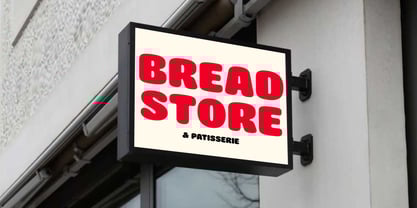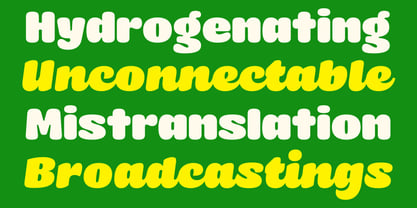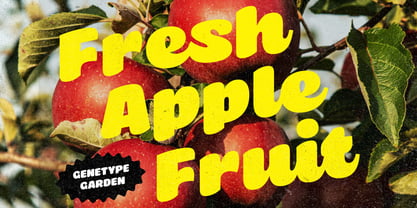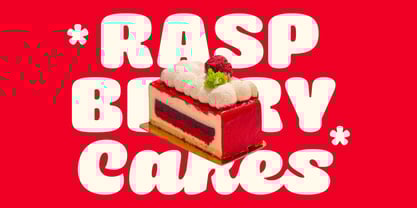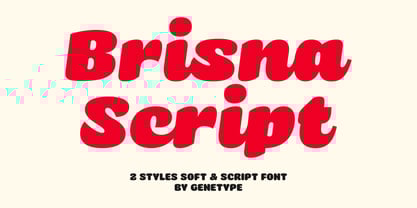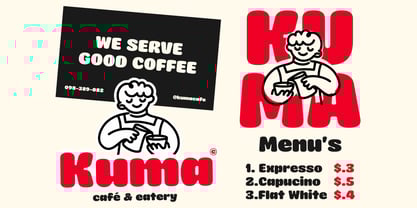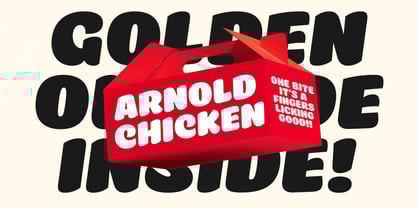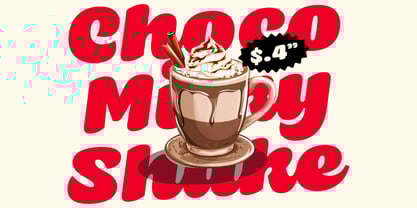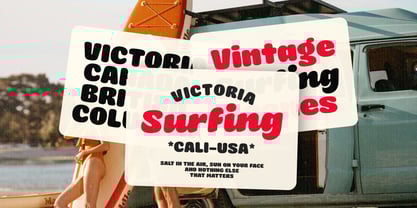
Brisna
by Genetype
The Brisna Font Family was designed by Bagus Arya Kirana and published by Genetype. Brisna contains 2 styles and family package options.
Briska – Soft Playful Script Font A smooth and playful script font with a soft, rounded personality — perfect for friendly branding, packaging, posters, and cheerful creative designs. Introducing Brisna – Soft Playful Script Font Briska is a warm and expressive script font designed to bring charm and personality to your typography. Its smooth curves and rounded strokes create a friendly, modern, and playful look while staying clear and readable. Perfect for branding, logos, packaging, posters, and social media graphics, Briska adds a cheerful and inviting feel to any design. 2 Font Styles: Brisna includes Regular and Script styles, allowing you to combine clean rounded lettering with expressive handwritten flow for more flexible and dynamic typography.
Designers: Bagus Arya Kirana
Publisher: Genetype
Foundry: Genetype
Genetypeco is an independent digital studio created by Arya. Based in Indonesia, been kicking it for three years now, and it's been a wild ride!We're all about making fonts that are seriously coolWe all want to create fonts that aren't just letters—they're vibes!Our goal? To rock the design world with typefaces that are fresh, innovative, and totally awesome.Stay tuned for our fonts and enjoy.